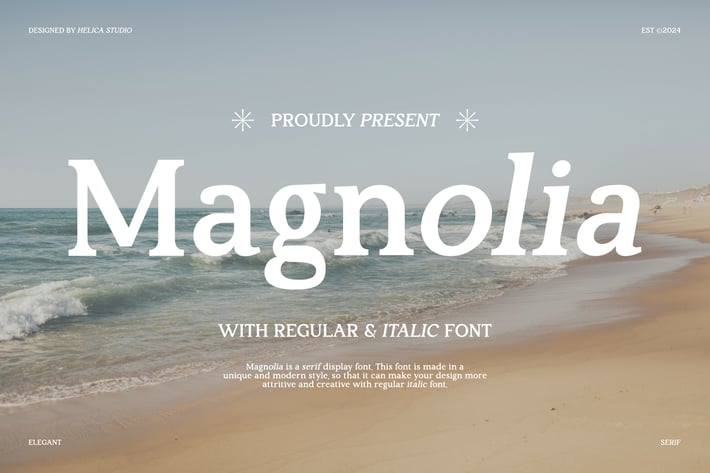
Magnolia Serif Font
Magnolia Serif Font typeface is perfect for crafting elegant quotes, stunning logos, captivating magazine headers, and so much more.
Numeral & Punctuations
Regular & Italic Font Version